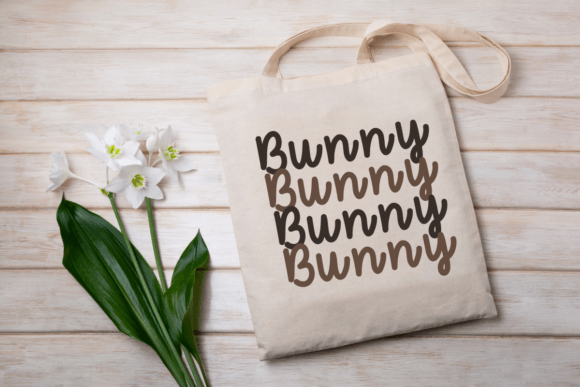
Hot Cross Buns Font: A Deliciously Handwritten Style for Your Creative Projects
Are you looking for a unique and charming font to add a personal touch to your writing, designs, or creative projects? Look no further than the Hot Cross Buns font! This handwritten font is perfect for taking notes, writing a diary, or making greeting cards, and its versatility makes it suitable for a wide range of applications, from banners and mugs to social media posts and more.
What is Hot Cross Buns Font?
Hot Cross Buns font is a beautiful, handwritten typeface that mimics the charm of traditional handwritten writing. Its soft, flowing lines and rounded edges give it a warm and inviting feel, making it perfect for a variety of creative projects. The font is designed to look like it was written with a pen or pencil, giving it a personal and intimate feel that’s hard to replicate with digital fonts.
Uses for Hot Cross Buns Font
One of the best things about Hot Cross Buns font is its versatility. While it’s perfect for handwritten-style writing, it’s also suitable for a wide range of design applications. Here are some ideas to get you started:
- Note-taking and journaling: Hot Cross Buns font is perfect for taking notes, writing a diary, or keeping a journal. Its flowing lines and rounded edges make it easy to read and write.
- Greeting cards and invitations: Add a personal touch to your greeting cards and invitations with Hot Cross Buns font. It’s perfect for creating unique and charming designs.
- Banners and signs: Use Hot Cross Buns font to create eye-catching banners and signs for events, parties, or promotions.
- Mugs and ceramics: Add a personal touch to your mugs, ceramics, and other kitchenware with Hot Cross Buns font.
- T-shirts and apparel: Use Hot Cross Buns font to create unique and stylish designs for t-shirts, hoodies, and other apparel.
- Stationery and paper goods: Hot Cross Buns font is perfect for creating custom stationery, paper goods, and other office supplies.
- Social media posts: Use Hot Cross Buns font to add a personal touch to your social media posts, making them stand out from the crowd.
Benefits of Using Hot Cross Buns Font
So why choose Hot Cross Buns font for your creative projects? Here are just a few benefits:
- Unique and charming: Hot Cross Buns font has a unique and charming style that’s sure to stand out from the crowd.
- Handwritten feel: The font’s handwritten feel gives it a personal and intimate touch that’s hard to replicate with digital fonts.
- Versatile: Hot Cross Buns font is suitable for a wide range of applications, from handwritten-style writing to design projects.
- Easy to read: The font’s flowing lines and rounded edges make it easy to read, even for extended periods.
Tips for Using Hot Cross Buns Font
Here are a few tips for getting the most out of Hot Cross Buns font:
- Use it for headings and titles: Hot Cross Buns font is perfect for headings and titles, adding a touch of personality to your designs.
- Mix it with other fonts: Combine Hot Cross Buns font with other fonts to create a unique and interesting design.
- Experiment with colors: Try out different colors and color combinations to add depth and interest to your designs.
- Keep it simple: Don’t be afraid to keep things simple and use Hot Cross Buns font for basic designs, such as notes or to-do lists.
In conclusion, Hot Cross Buns font is a deliciously handwritten style that’s perfect for adding a personal touch to your creative projects. Its versatility, charm, and ease of use make it a great choice for a wide range of applications, from handwritten-style writing to design projects. So why not give Hot Cross Buns font a try and see how it can add a touch of personality to your work?